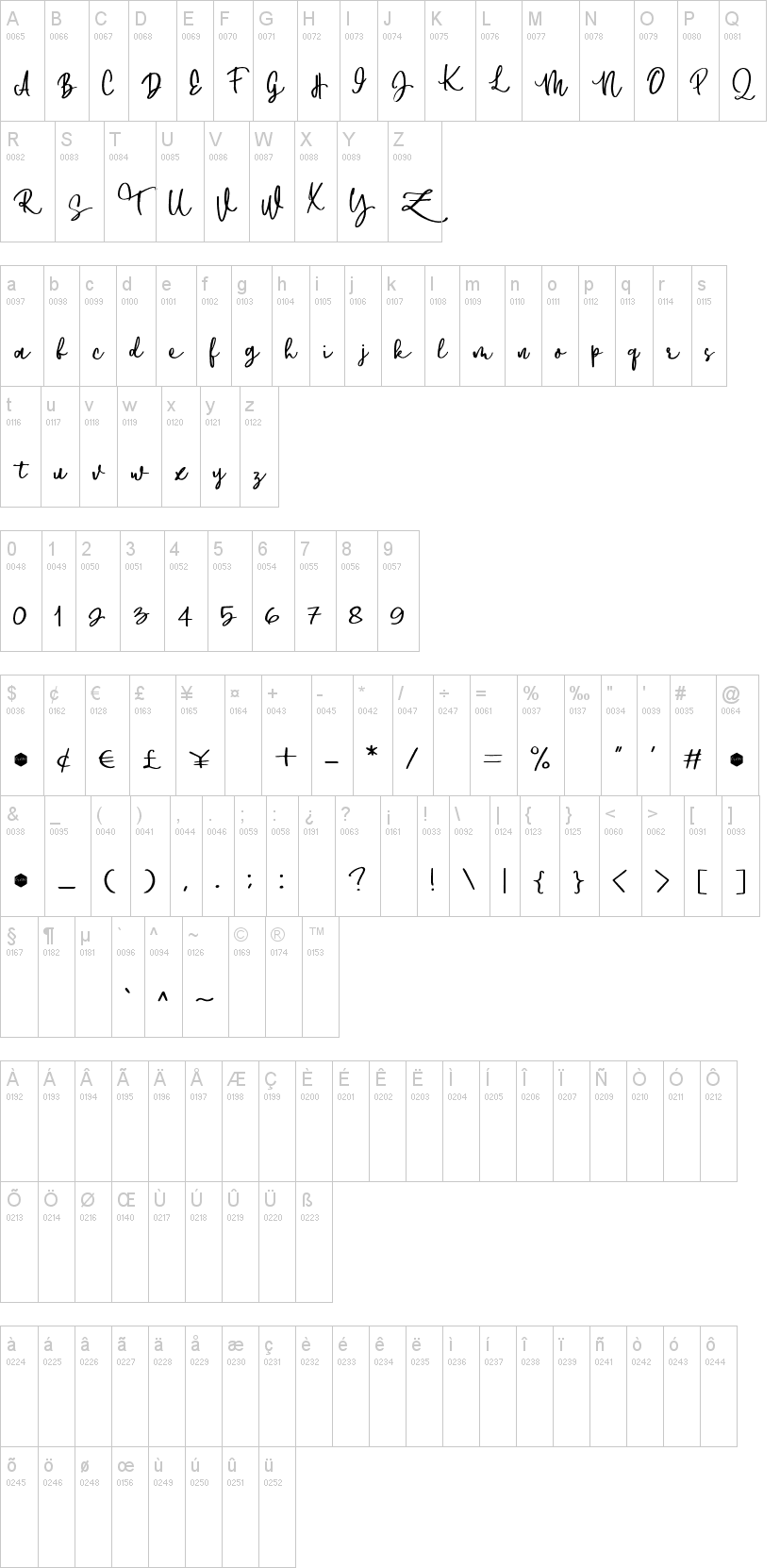
Note of the authorDowntown is naturally made from my hand-lettered calligraphy. It's perfectly suited for your beautiful logo branding, cards and invitations, book cover and all about cute stuffs!